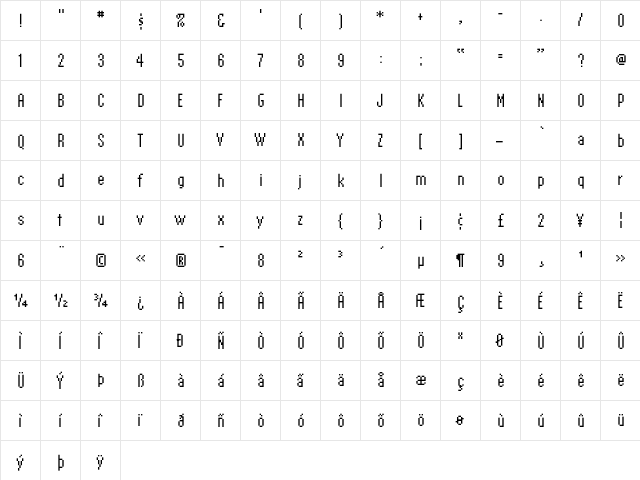
EmperorTen Regular
Design Context for EmperorTen Typeface
EmperorTen takes a measured approach to typography — its balanced proportions and neutral character make it a reliable workhorse for both digital and print work.